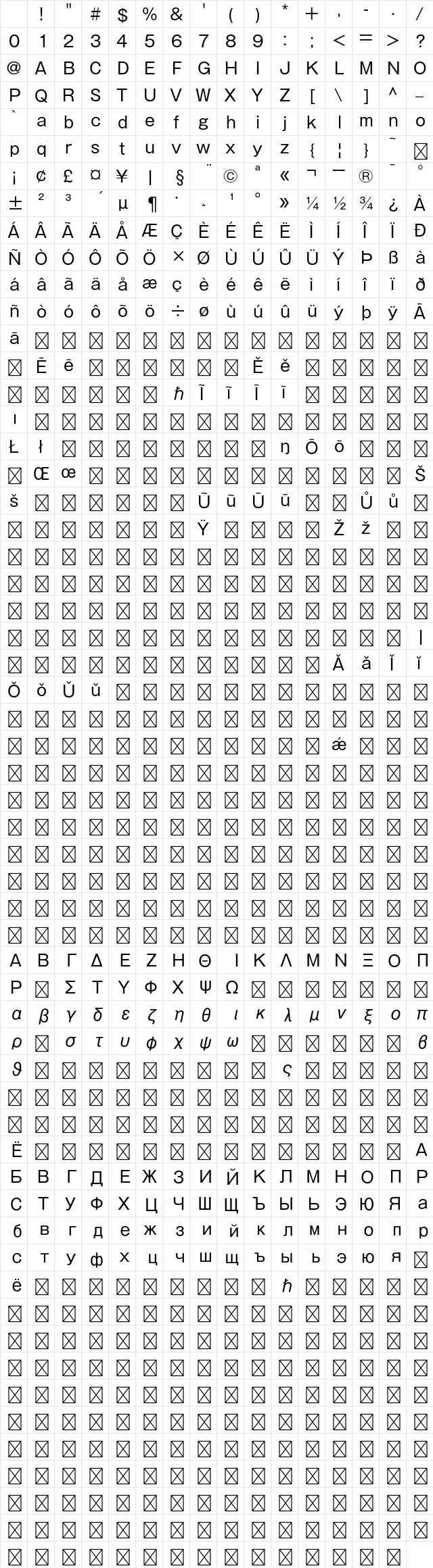
A-OTF Gothic MB101 Pro R
Complete A-OTF Gothic MB101 Pro R glyph index. Displaying only characters natively supported by A-OTF Gothic MB101 Pro R font.
Design Context for A-OTF Gothic MB101 Pro
A-OTF Gothic MB101 Pro takes a clean, functional approach - its unadorned letterforms prioritise legibility and work reliably across screen and print environments.
Font Pairing: Works well alongside a characterful serif or display font that can carry the expressive load while A-OTF Gothic MB101 Pro handles the functional copy.
Pro Tip: Use A-OTF Gothic MB101 Pro for UI labels, navigation, and short-form body copy where clean legibility is the priority.